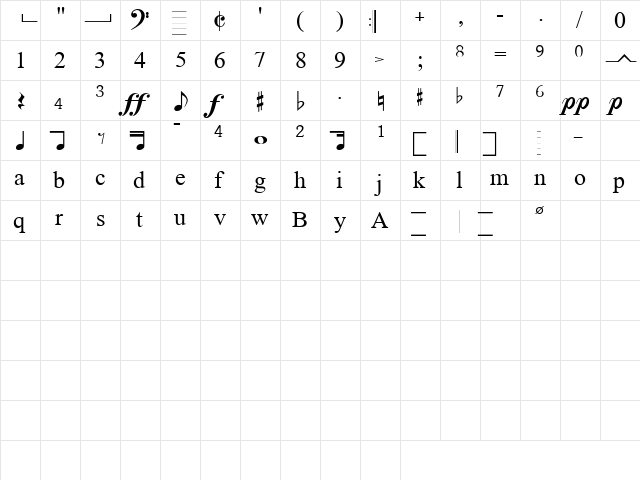
MetDemo Regular Font Preview
MetDemo Regular
Design Context for MetDemo Typeface
MetDemo is a composed and adaptable typeface that performs quietly and consistently across a wide range of design contexts.